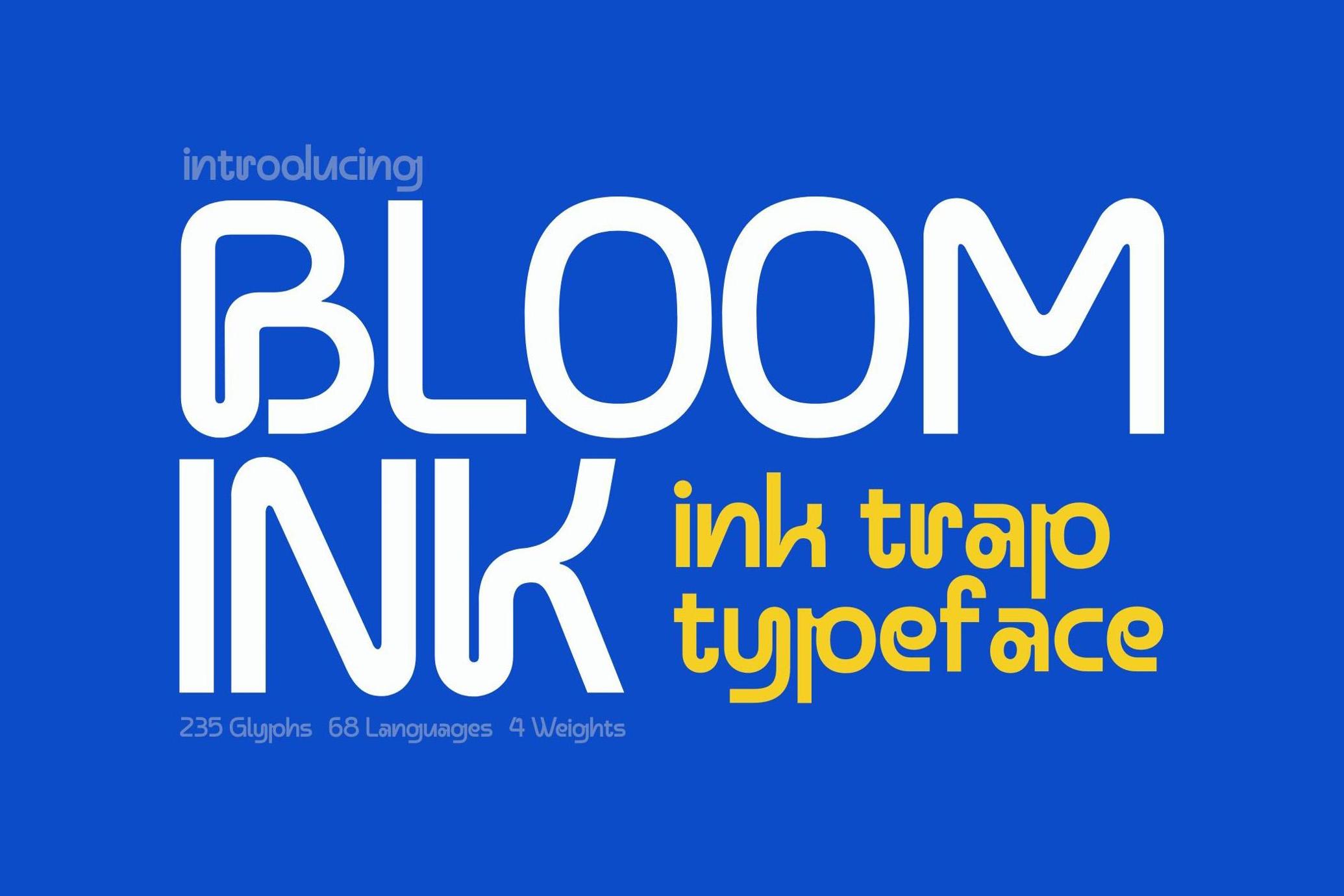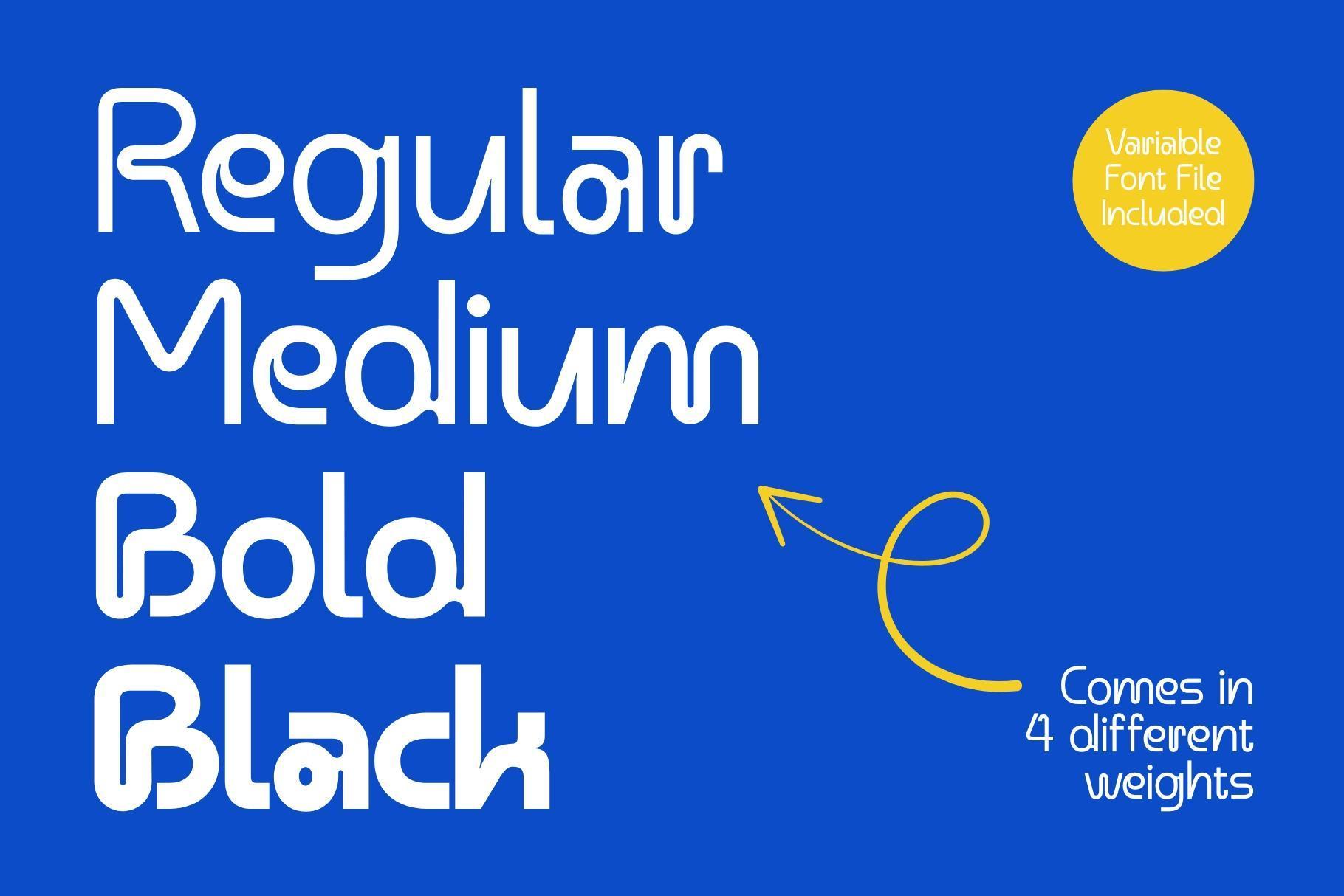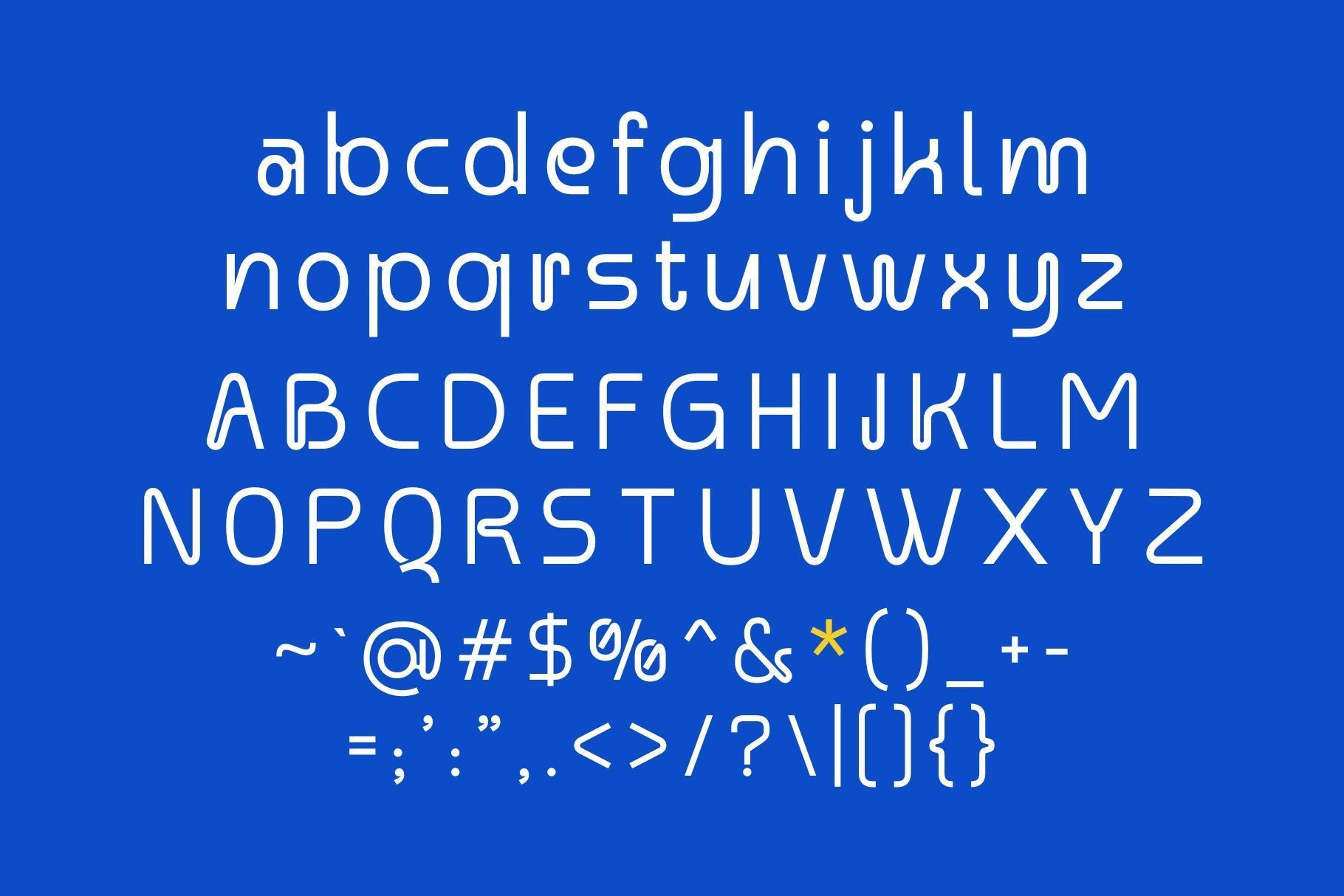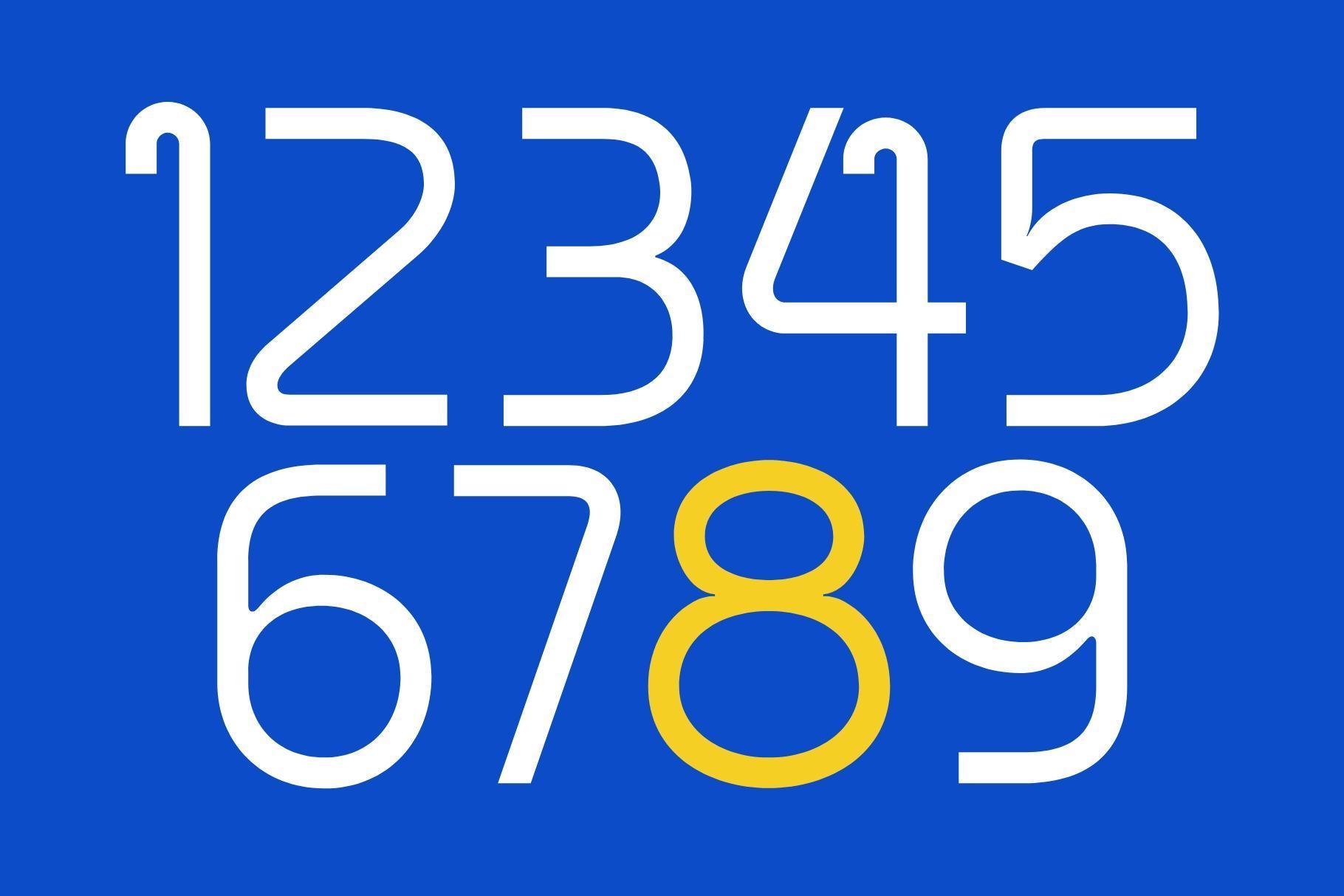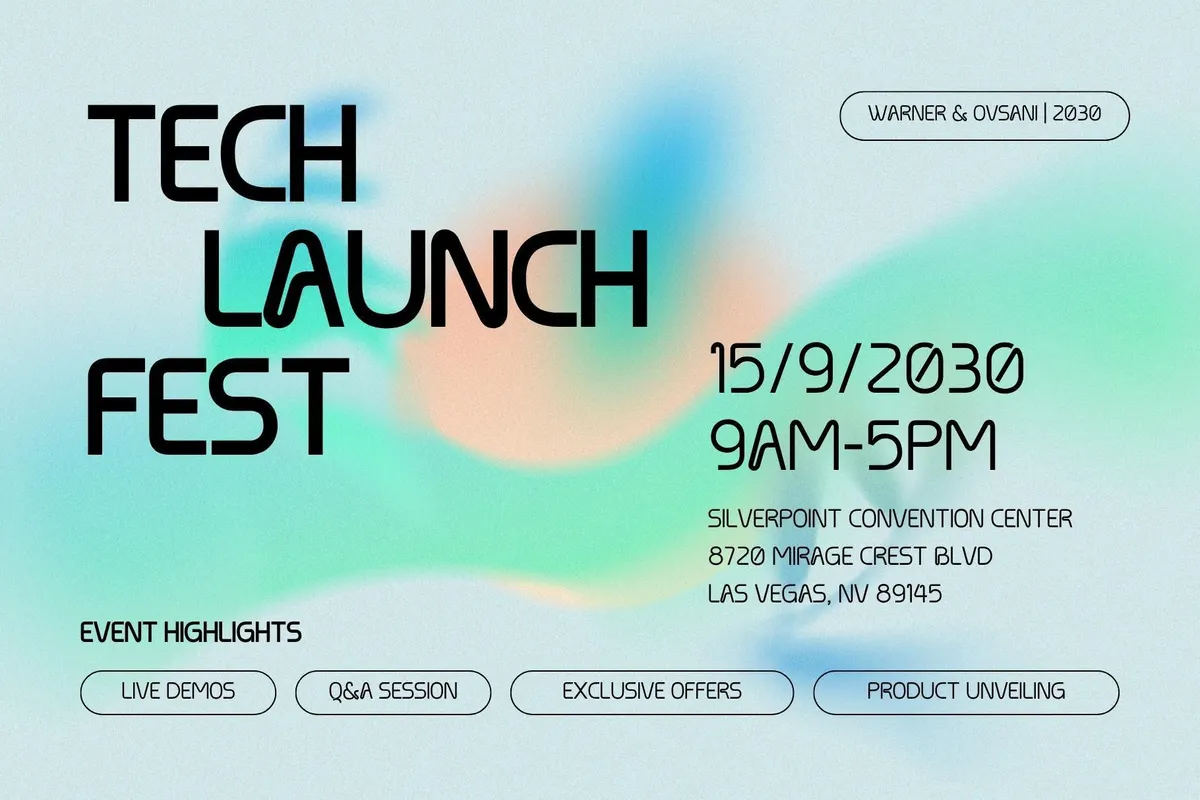
Bloomink - Ink Trap Sans Serif
Step into the future of refined typography with Bloom Ink, a sophisticated ink trap sans-serif that balances striking functionality with sleek, minimal beauty. Designed with the modern design professional in mind, Bloom Ink is more than just a font, it’s a statement of precision, clarity, and elegance.
With four versatile weights and a powerful variable font file included, Bloom Ink gives you full control over visual rhythm and tone. Whether you're crafting clean editorial layouts, stylish branding, UI/UX interfaces, or high-end packaging, this typeface adapts effortlessly to your vision.